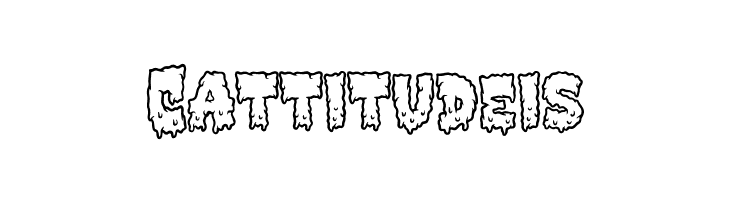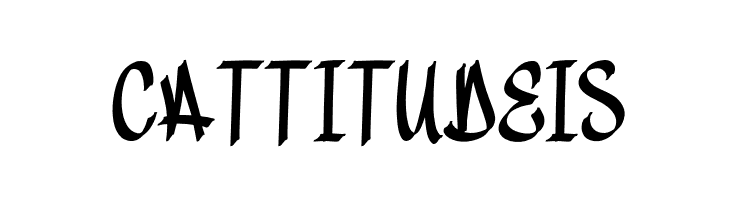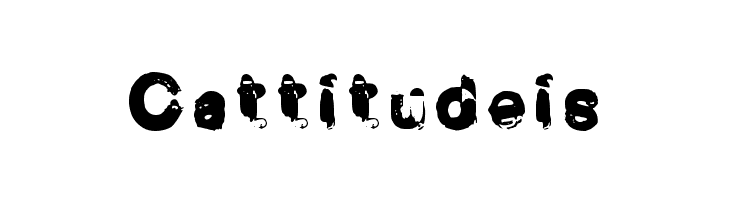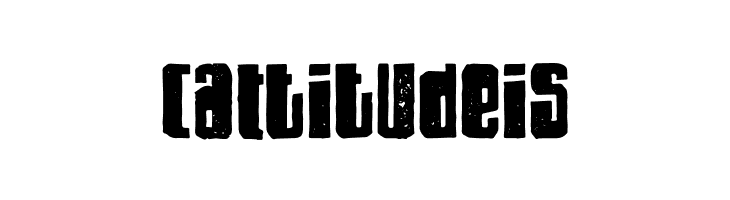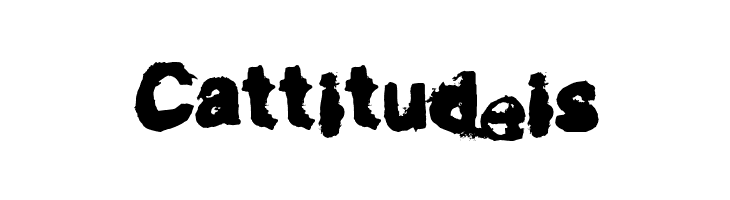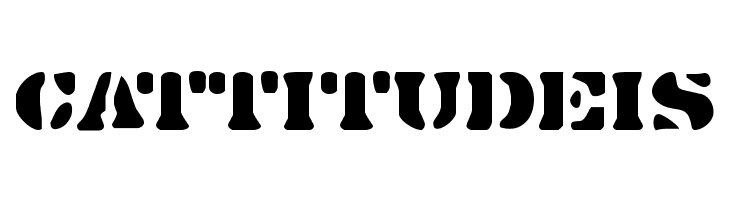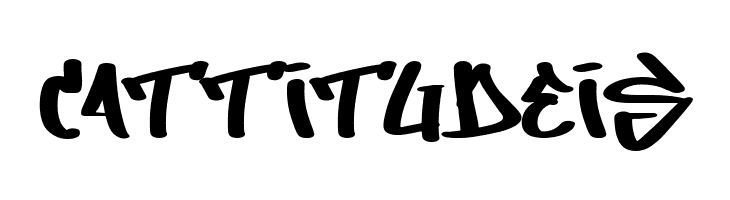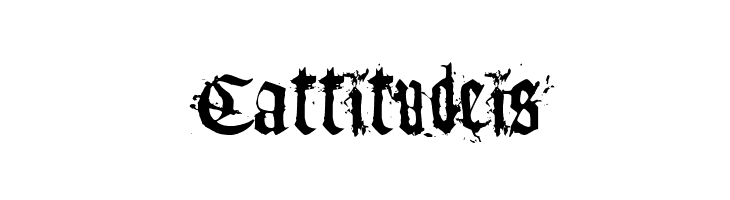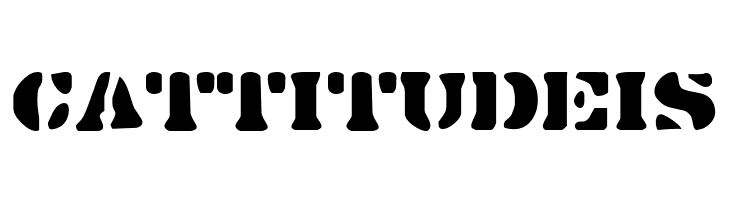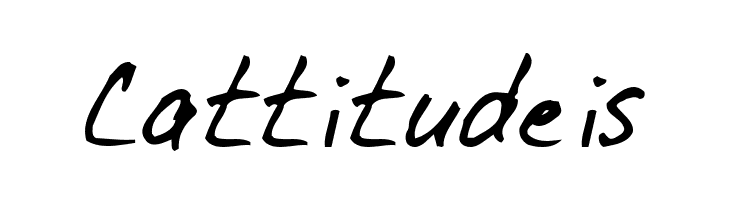
A bold, distressed font with a gritty, vintage appearance.
A bold, stencil-style font with a rugged, distressed texture.
A whimsical and artistic font with elongated ascenders and descenders.
A bold, graffiti-inspired font with a dynamic and expressive style.
A playful, hand-drawn font with a casual, informal style.
A hand-drawn, sketch-like font with a casual and informal feel.
A bold, distressed font with a grunge, industrial style.
A rugged, distressed font with a vintage, weathered appearance.
A bold, distressed font with a gritty, rock-inspired aesthetic.
A bold, distressed font with a grunge, textured appearance.
A bold, rugged font with a distressed, hand-crafted appearance.
A bold, futuristic font with geometric and decorative elements.
A horror-themed font with dripping, melting letters ideal for spooky designs.
A playful, hand-drawn font with irregular strokes and a casual, informal style.
A bold, stencil-style font with geometric cut-out designs.
A bold, stencil-style font with a rugged, industrial look.
A bold, distressed font with a gritty, worn texture.
A sophisticated script font with flowing, interconnected letters and elegant flourishes.
A bold, distressed font with a grungy, urban aesthetic.
A bold, textured font with a rugged, brush-stroke appearance.
A distressed, textured cursive font with a dynamic, handwritten appearance.
A bold, hand-drawn font with energetic, brush-like strokes.
A hand-drawn, ink-like font with a raw and organic feel.
A bold, hand-drawn font with an expressive and playful style.
A bold, distressed font with a grungy, rebellious style.
A rugged, hand-drawn font with an edgy, chaotic style.